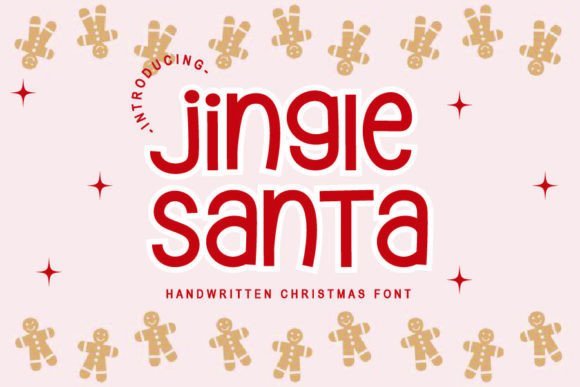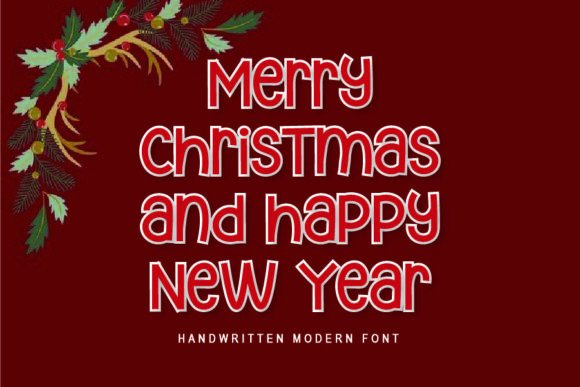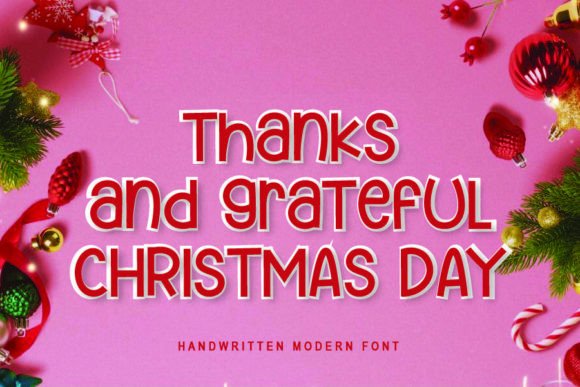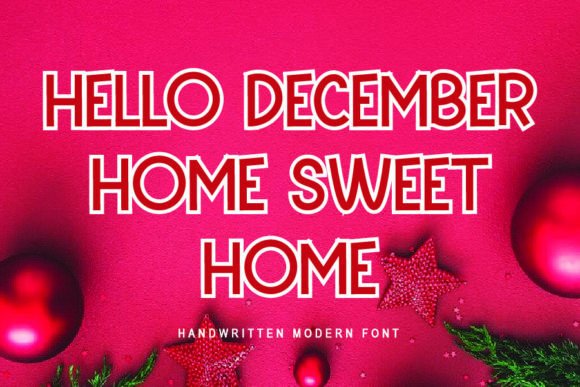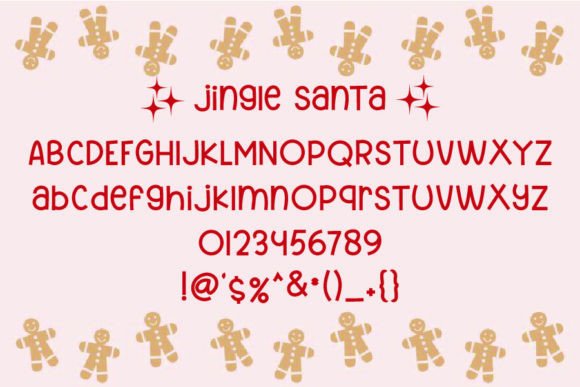
Get Ready to Jingle All the Way with the Most Magical Font of the Season
Have you ever found yourself sitting at your desk, surrounded by twinkling lights, festive music, and a steaming cup of hot cocoa, only to be struck by a creative spark that sets your imagination ablaze? That’s exactly what happened to us when we stumbled upon the enchanting Jingle Santa Font. This elegant and adorable handwritten font is the perfect accompaniment to your holiday design projects, infusing them with a dash of whimsy and charm.
With the Jingle Santa Font, you can create spectacular designs that capture the essence of Christmas magic. Whether you’re designing greeting cards, gift tags, or social media graphics, this versatile font will add a touch of sophistication and playfulness to your creations. As a designer, you know how valuable it is to have a reliable and stylish font in your arsenal, and the Jingle Santa Font is sure to become your go-to choice for all your holiday design needs.
Jingle Santa Font Key Features
- Unique Characteristics: Jingle Santa Font features a playful, festive design with intricate details, making it perfect for Christmas-themed projects.
Jingle Santa Font Review
I’ve had the chance to work with the Jingle Santa Font, and I have to say it’s a fun and festive addition to any holiday design project. ✨ One of the things that stands out is its playful, whimsical feel, perfect for capturing the spirit of the season. The font’s bold lines and rounded edges give it a friendly, approachable vibe that’s sure to put a smile on people’s faces.
Here are a few things that work well:
- ✨ Unique and creative design that’s sure to stand out
- ✨ Wide range of font styles and weights to choose from
- ✨ Perfect for use in holiday-themed designs, such as greeting cards, posters, and more
- ⚠️ May not be suitable for use in formal or professional designs
- ⚠️ Some users may find the font’s bold lines and rounded edges to be too playful or juvenile
- ⚠️ Limited language support, which may be a concern for international designs
Overall, I think the Jingle Santa Font is a great addition to any holiday design project. It’s a fun and festive font that’s sure to add some personality to your designs. Just be mindful of its limitations and use it in contexts where it will shine.
Tips for Getting the Most Out of Jingle Santa Font
Use Jingle Santa Font for festive projects such as holiday cards, gift tags, and advertisements.
Combine Jingle Santa Font with other festive graphics and colors to create a cohesive look.
Experiment with different font sizes and colors to add emphasis and visual interest.
Jingle Santa Font is ideal for:
Holiday cards and invitations
Gift tags and labels
Advertising and marketing materials
Festive social media graphics